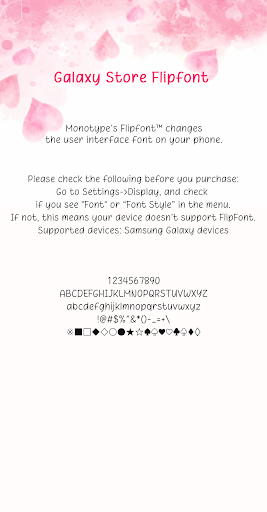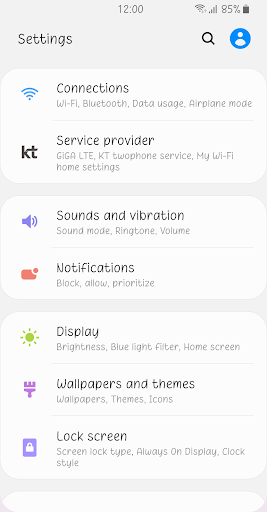
Fine Loveagain
This font is characterized by its cute handwriting style and even thickness.
The comfortable shape of the natural form and the movement of soft strokes are cute and lovely.